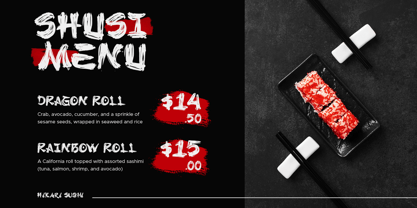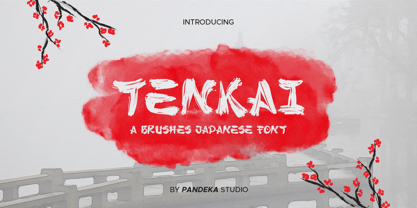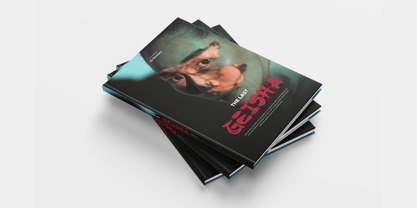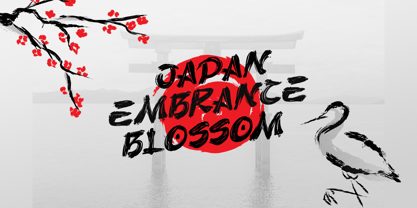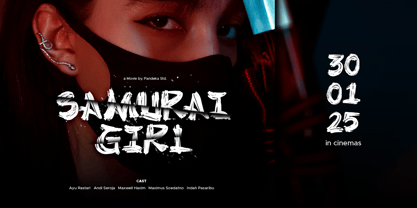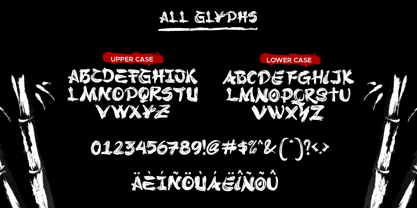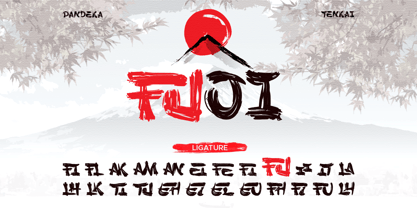
Tenkai
Konnichiwa! 🌸 Meet Tenkai, a bold and authentic Japanese brushes font inspired by the beauty and artistry of traditional Japanese culture. Designed with a hand-drawn brushstroke style, Tenkai brings a dynamic and organic feel to your designs. Its imperfect yet harmonious strokes capture the spirit of Japanese calligraphy, making it perfect for projects that aim to evoke tradition, artistry, and elegance.
• 1 Style: Regular
• Full Character Set: Uppercase, lowercase, numbers, symbols, and punctuation